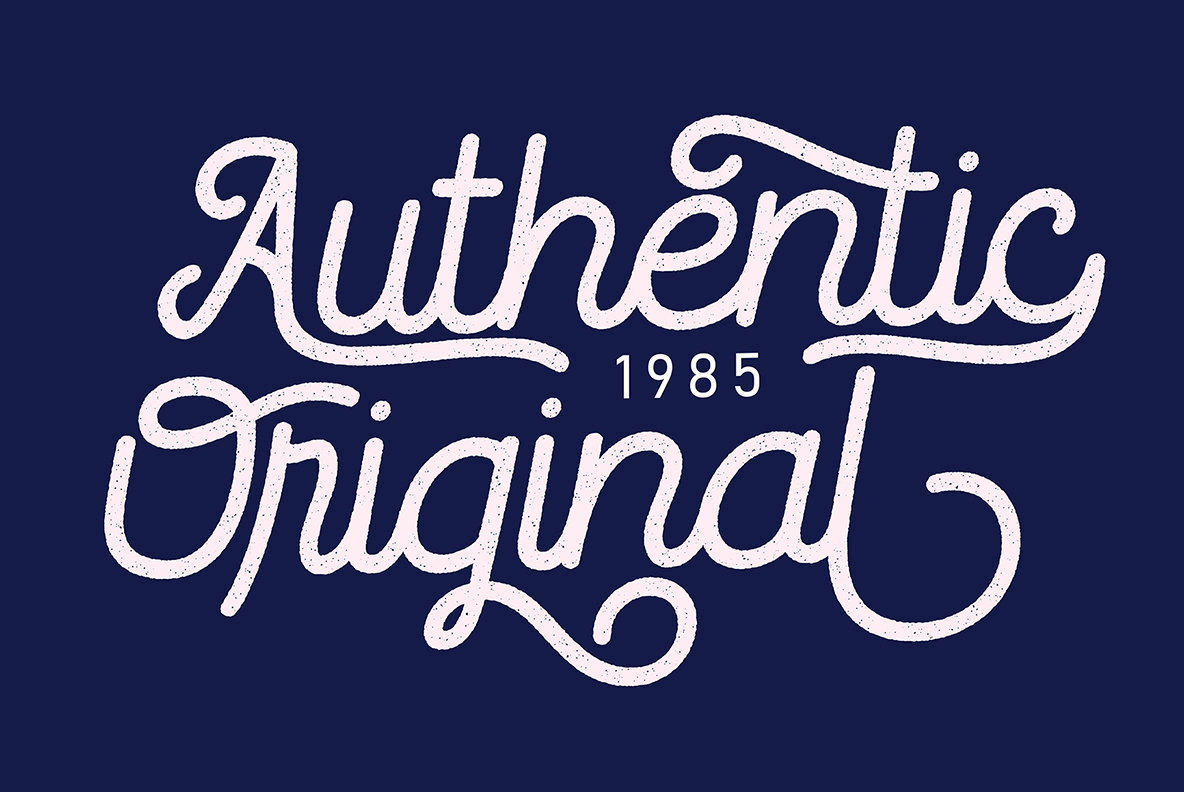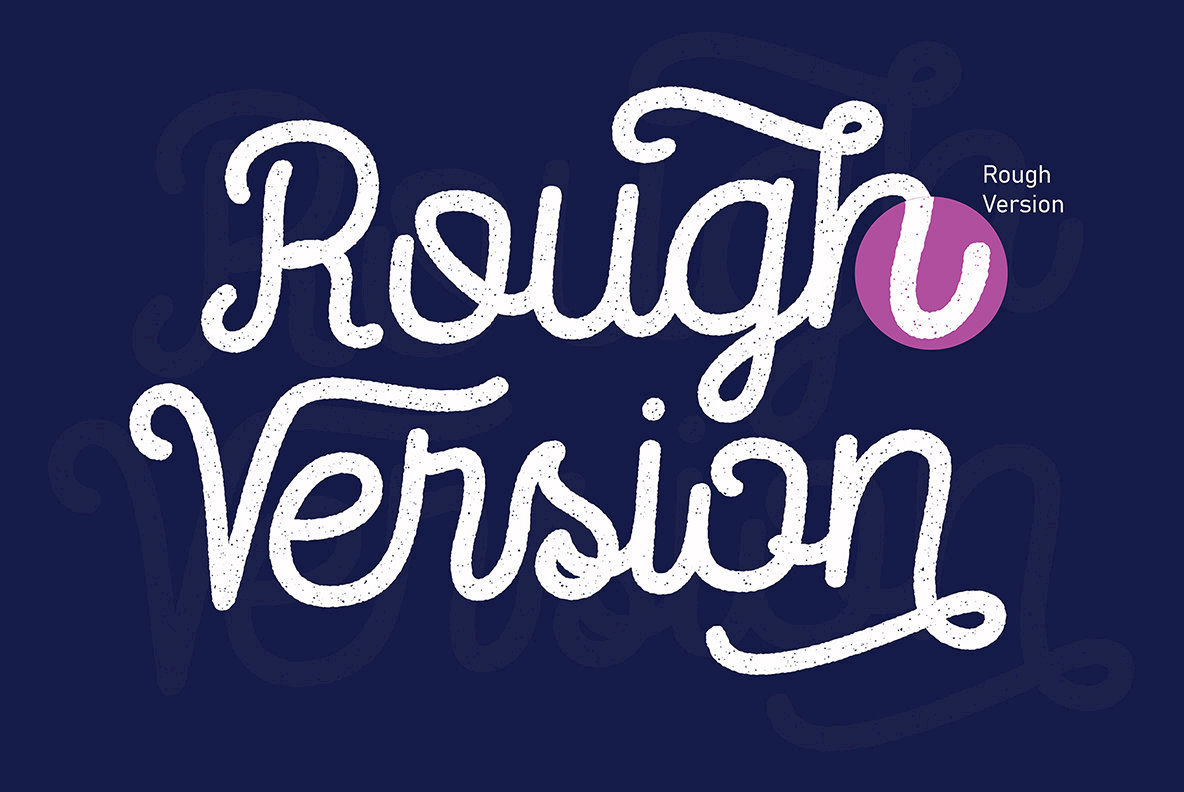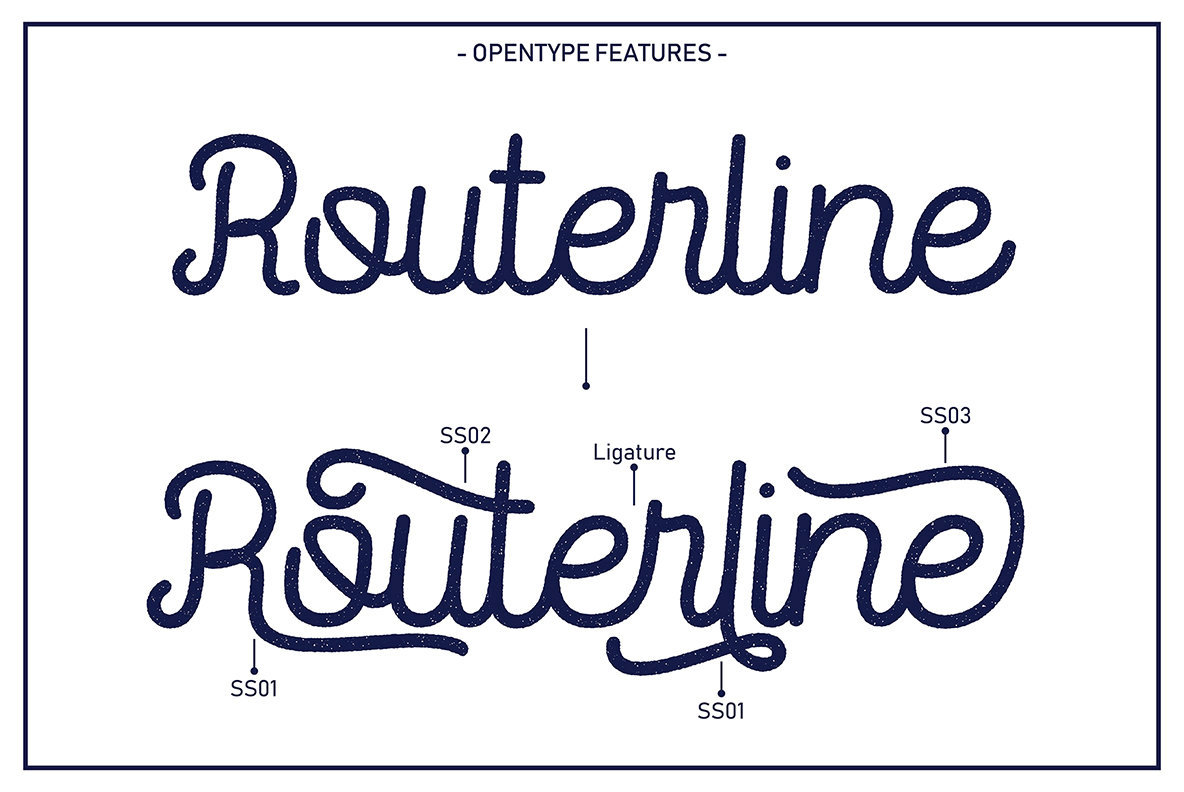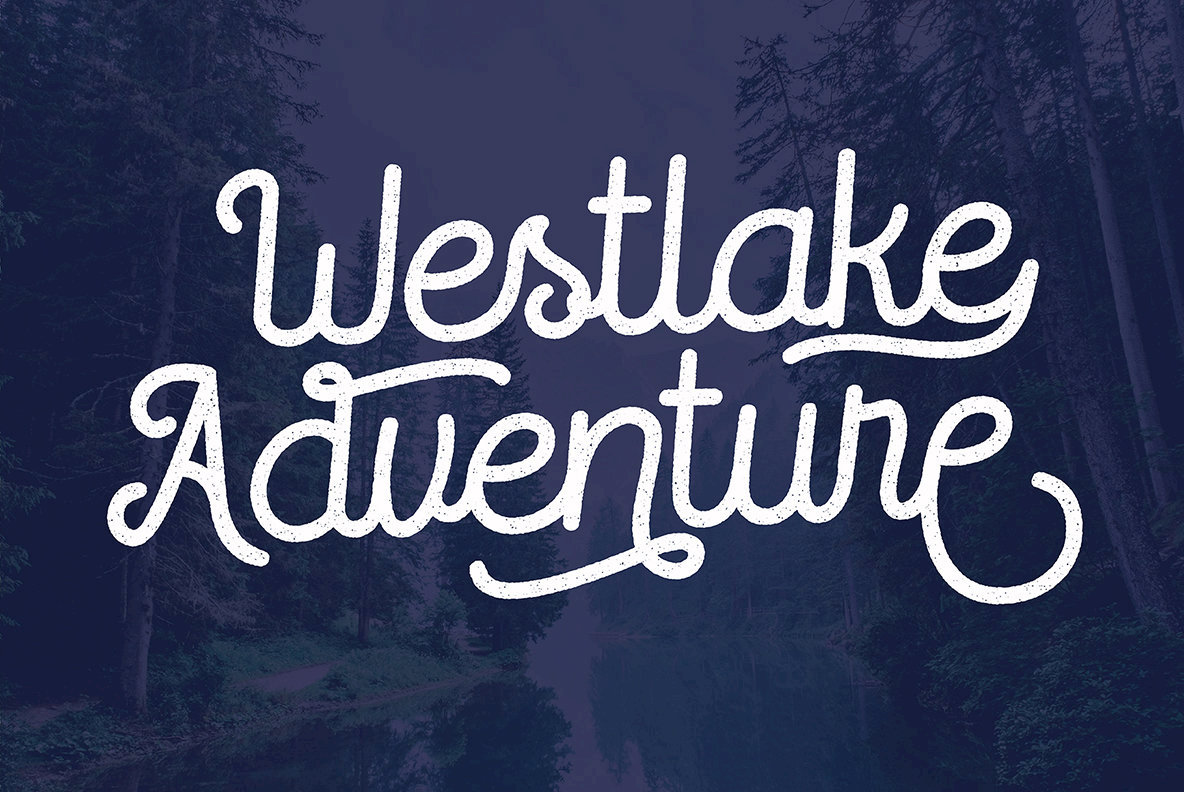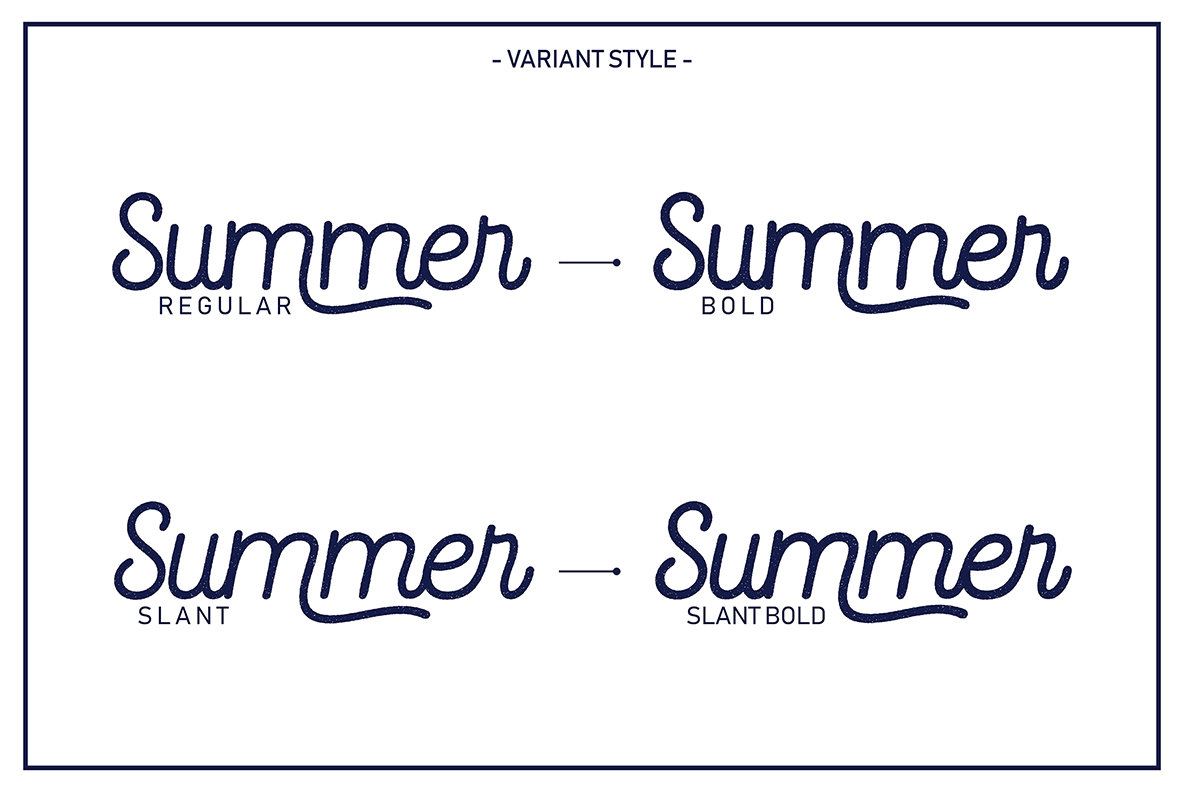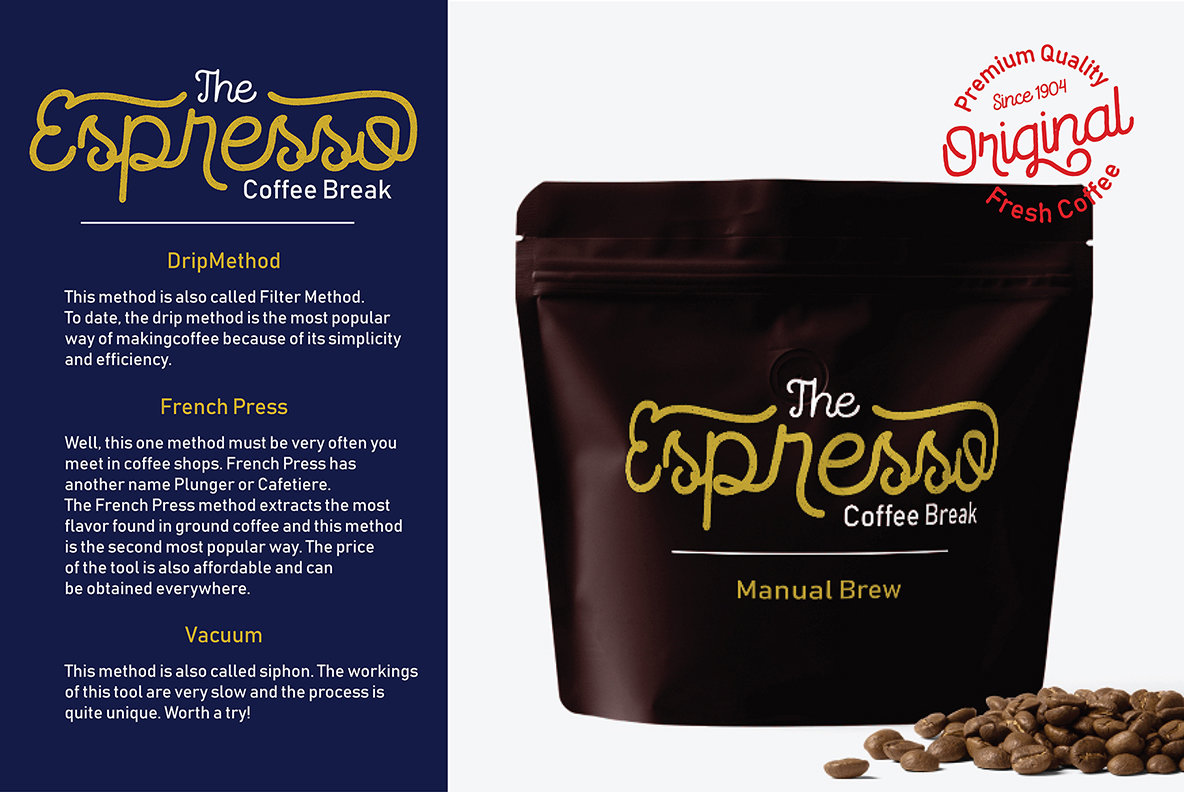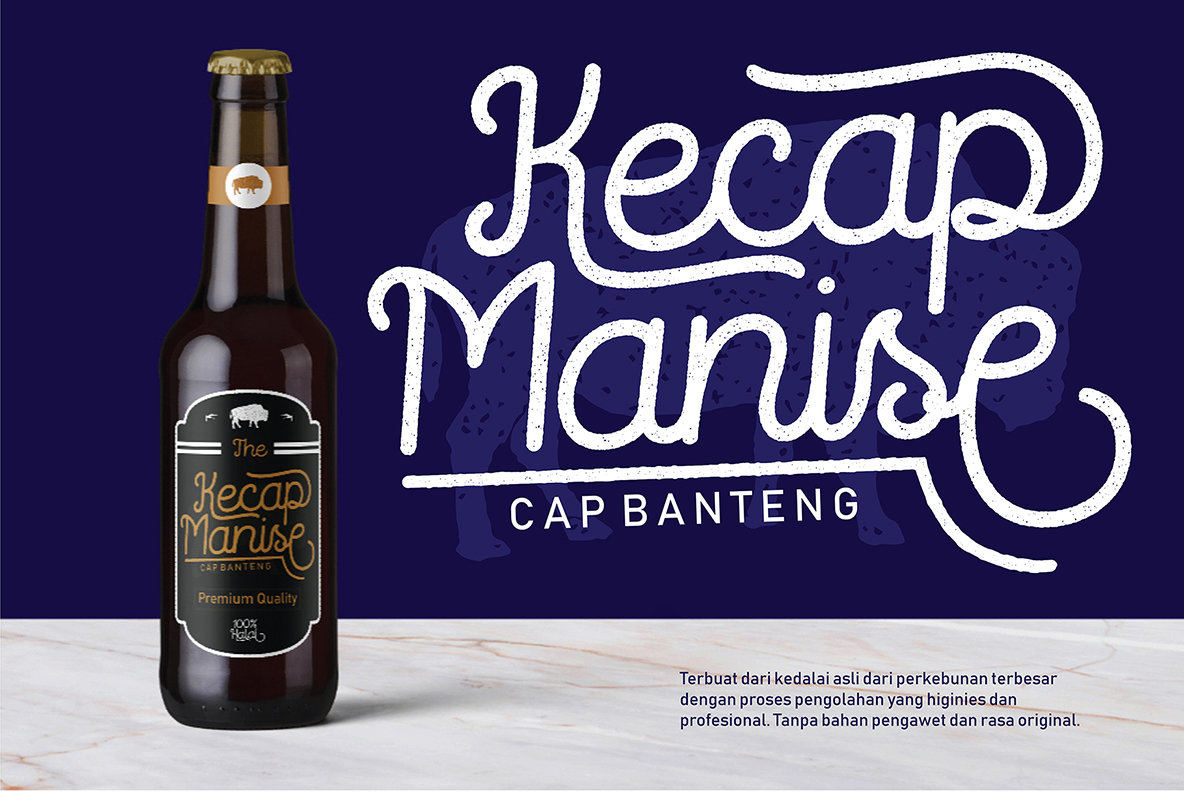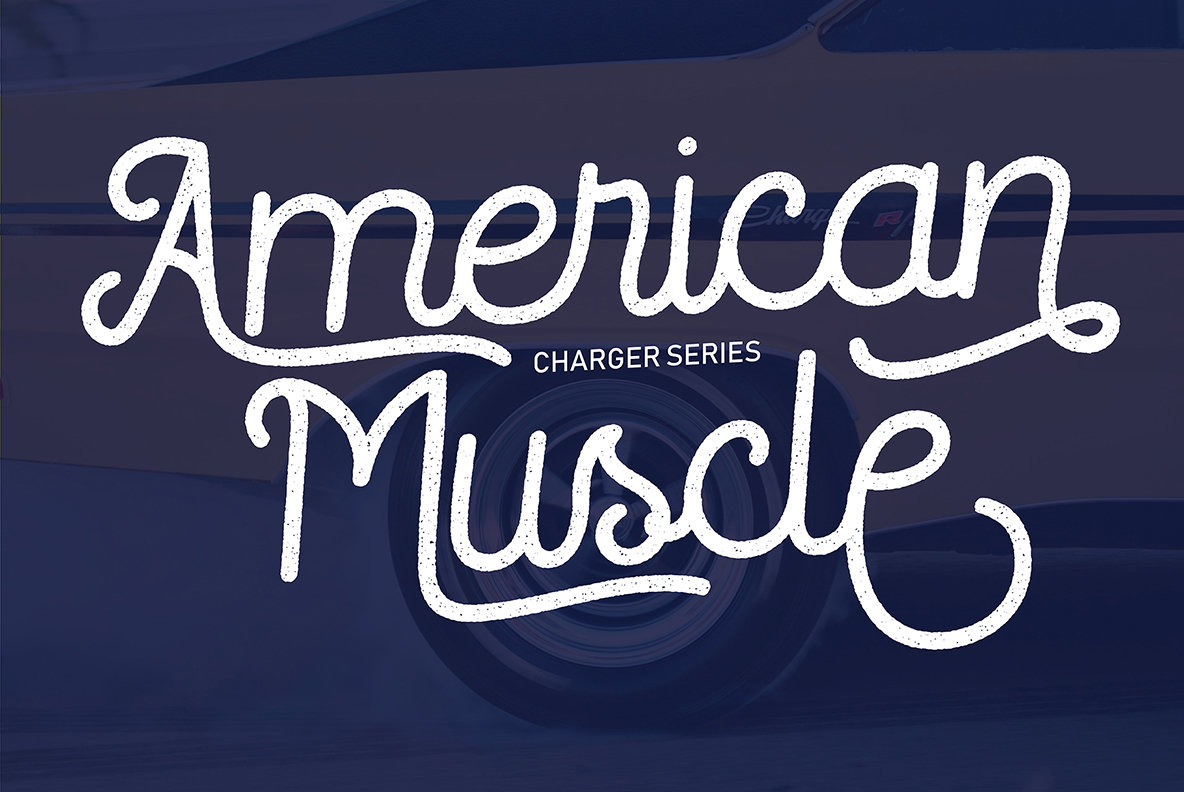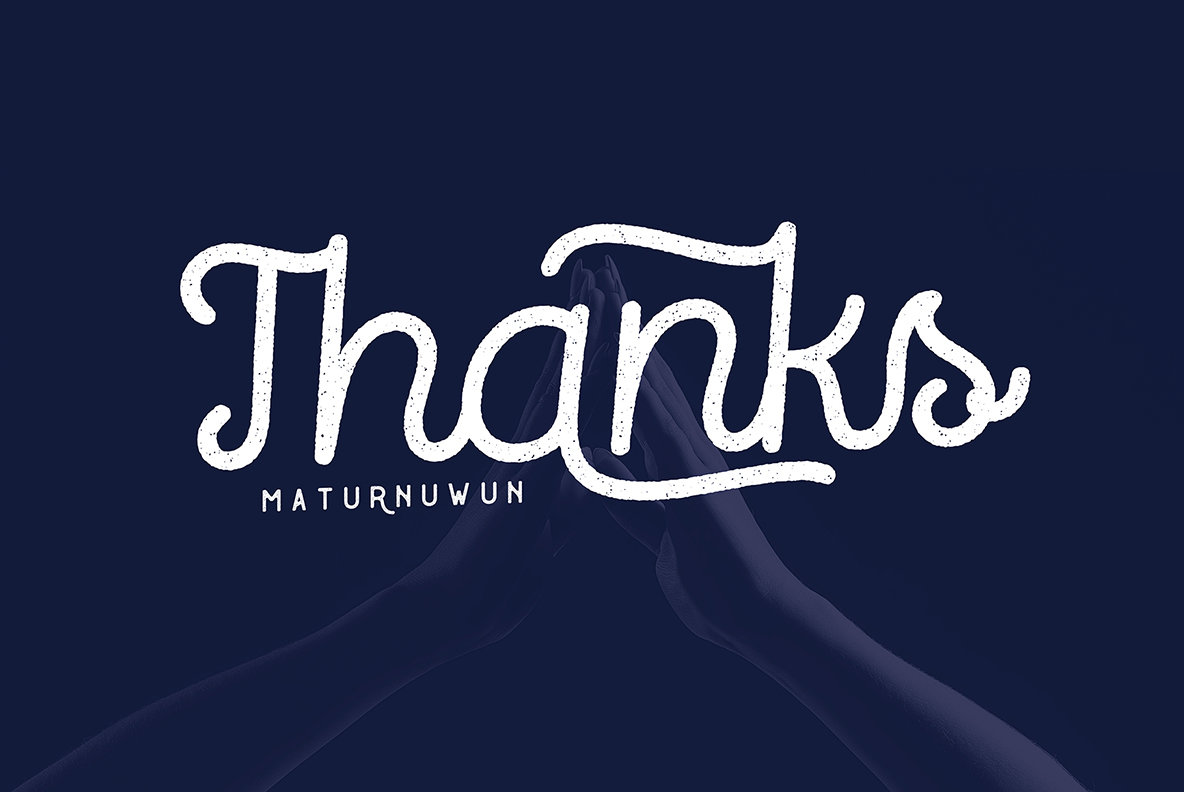
Routerline Rough Font
Routerline Rough
Routerline Bold Rough
Routerline Bold Rough Slant
Routerline Rough Slant
Routerline Rough by Lukman Hidayat embodies the charm of a classic script monoline, rendered in four distinctive styles. Its versatile application spans various design projects, from clothing design to vintage logos. This font comes complete with multilingual characters, ligature, and alternate options, offering a richness that enhances creative possibilities. Routerline Rough is particularly suitable for quotes, labels, posters, and packaging design, ensuring an elegant and cohesive look.Routerline Rough: A Versatile Script Monoline Font